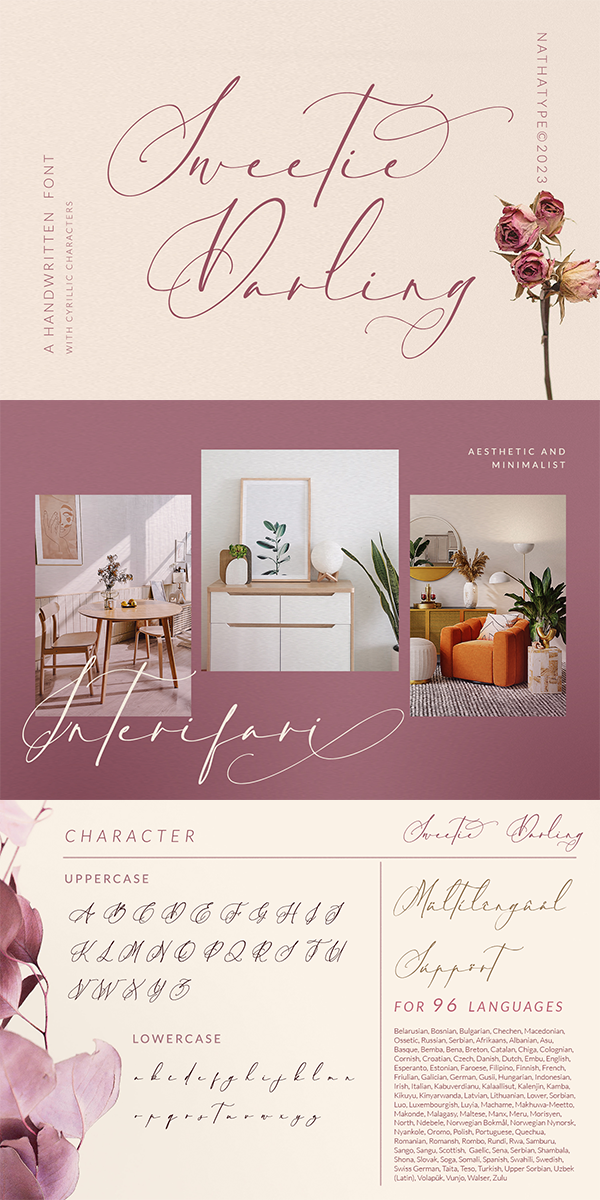
Sweetie Darling Font
About Sweetie Darling
Sweetie Darling is a cursive-style handwriting script font. Like other cursive font designs, the letters are interconnected, but another character of this font is that the letters have high contrasts in curved edges to beautify the display.
• Alternates